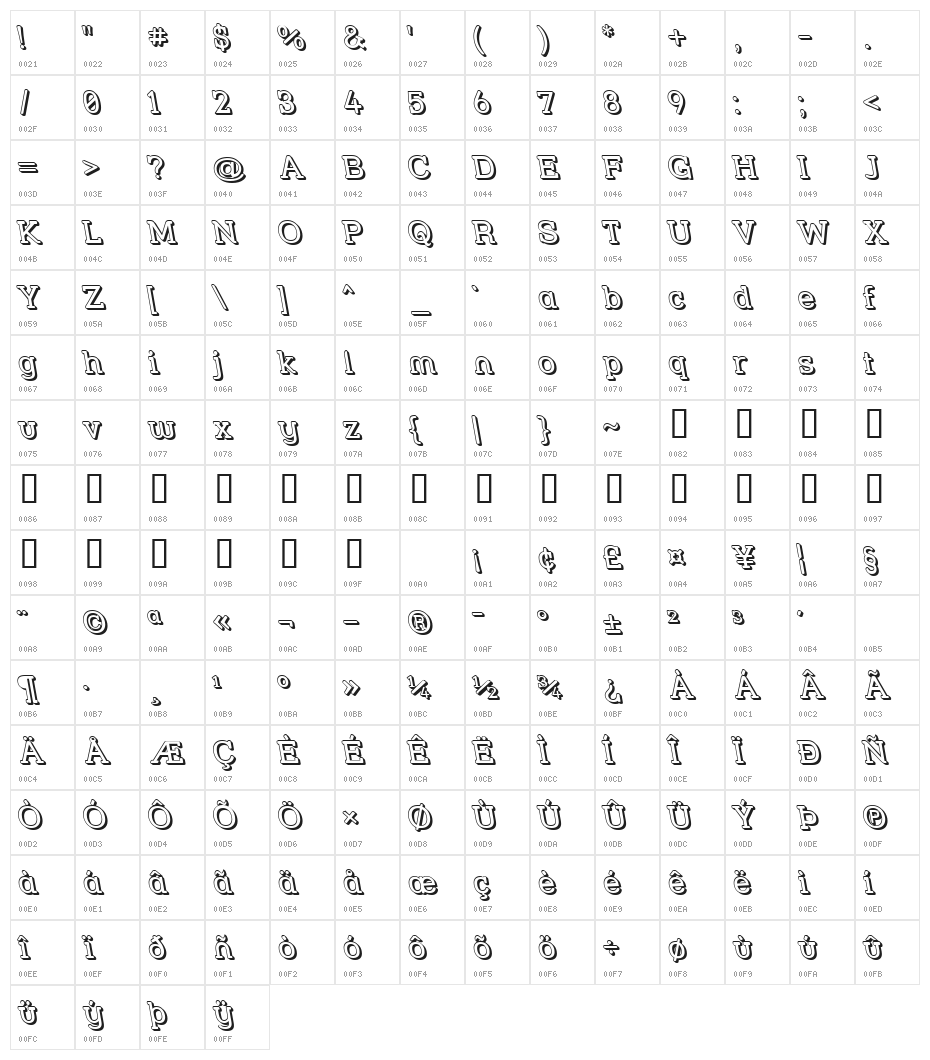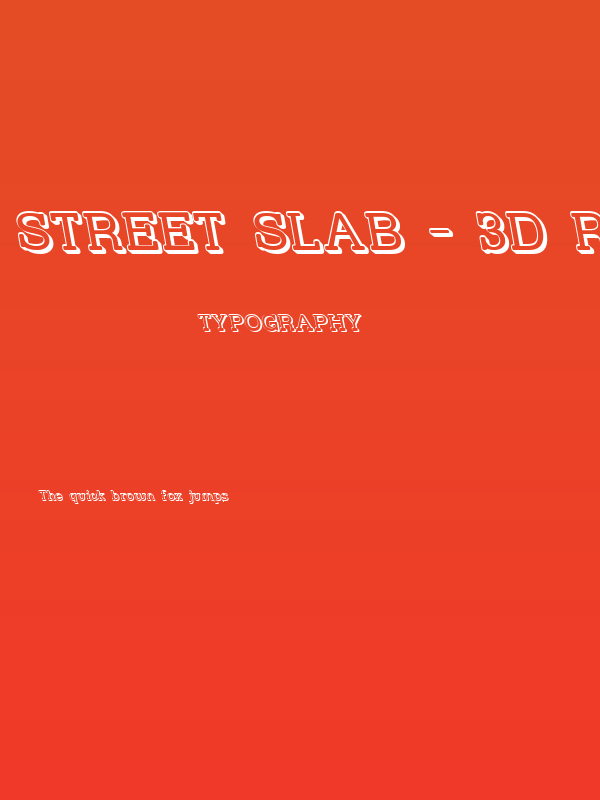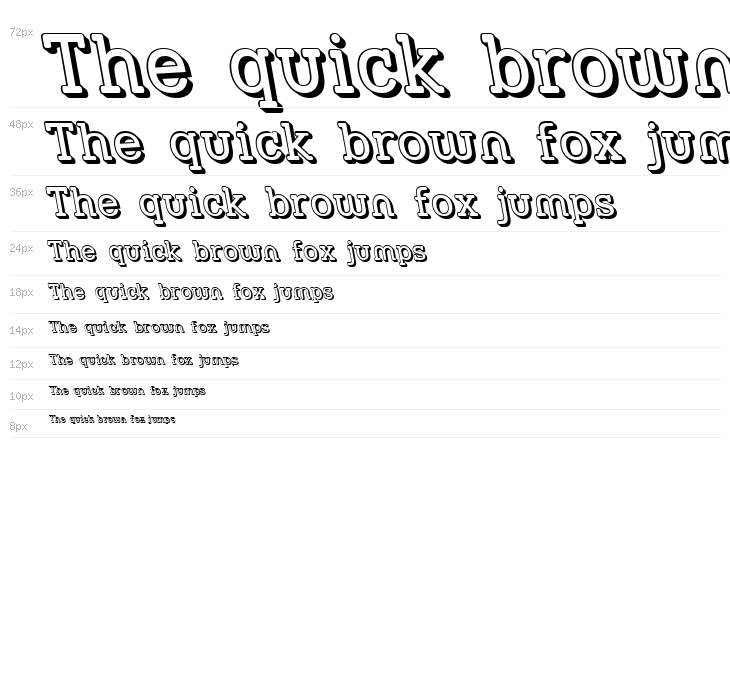
Street Slab - 3D Rev Font
Street Slab - 3D Rev Description
This font features a bold, three-dimensional slab serif style that is both eye-catching and versatile. The characters are outlined with a shadow effect, giving them a distinct 3D appearance. The uppercase and lowercase letters maintain a consistent weight and width, ensuring readability while adding a playful, decorative touch. The numerals and special characters are designed to match the boldness and style of the alphabet, making them suitable for a variety of design needs. The font's unique style makes it ideal for projects that require a strong visual impact.